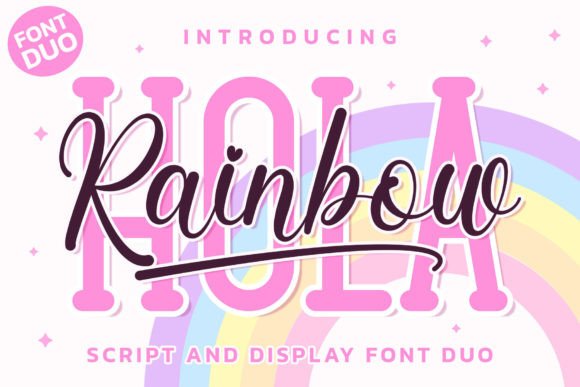
Looking for a font that's perfect for birthday invitations? Look no further than Hola Rainbow Duo Font! This display font family created by Hoperative Design is perfect for anyone looking to add a touch of fun and playfulness to their designs.
Featuring a stylish script and serif display font, Hola Rainbow Duo Font is the ideal choice for those who want to create eye-catching and attractive rainbow designs. With its fresh and lovely look, this font is sure to captivate the attention of anyone who sees it.
Whether you're looking to create invitations for a child's birthday party, or you just want to add a little bit of fun and whimsy to your designs, Hola Rainbow Duo Font is the perfect choice. Its playful nature and stylish design make it a must-have for anyone who wants to create something truly unique.